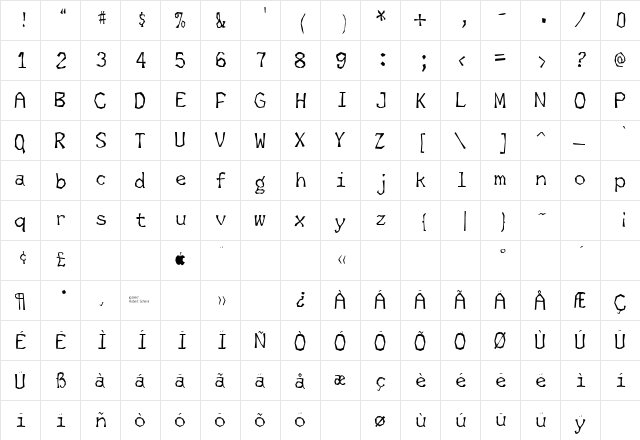
SkagwaeMono Regular Font Preview
SkagwaeMono Regular
SkagwaeMono Regular Font Details
Design Context for SkagwaeMono Typeface
SkagwaeMono uses fixed-width spacing throughout, giving it the structured, systematic character associated with coding environments and technical documentation.